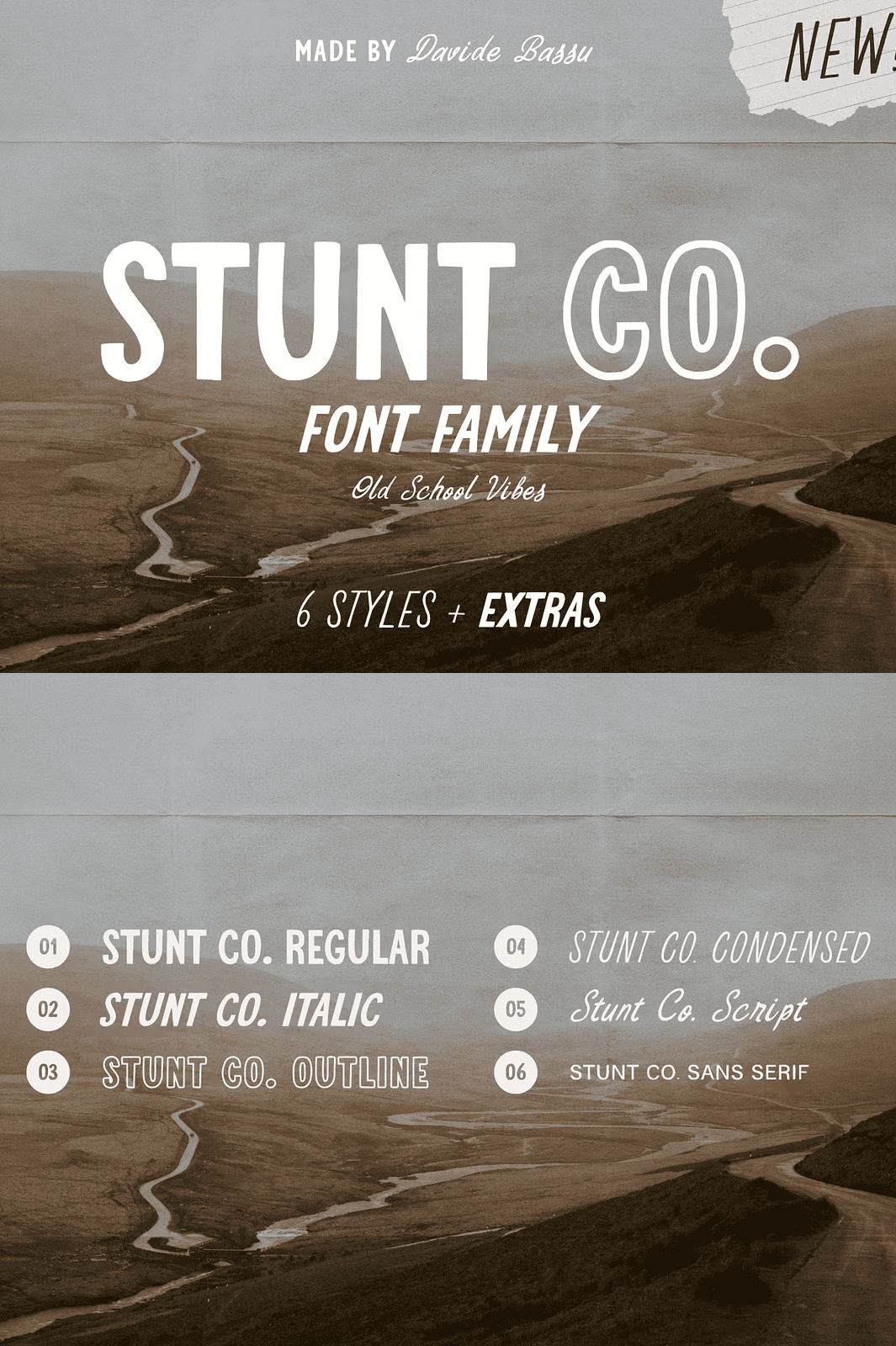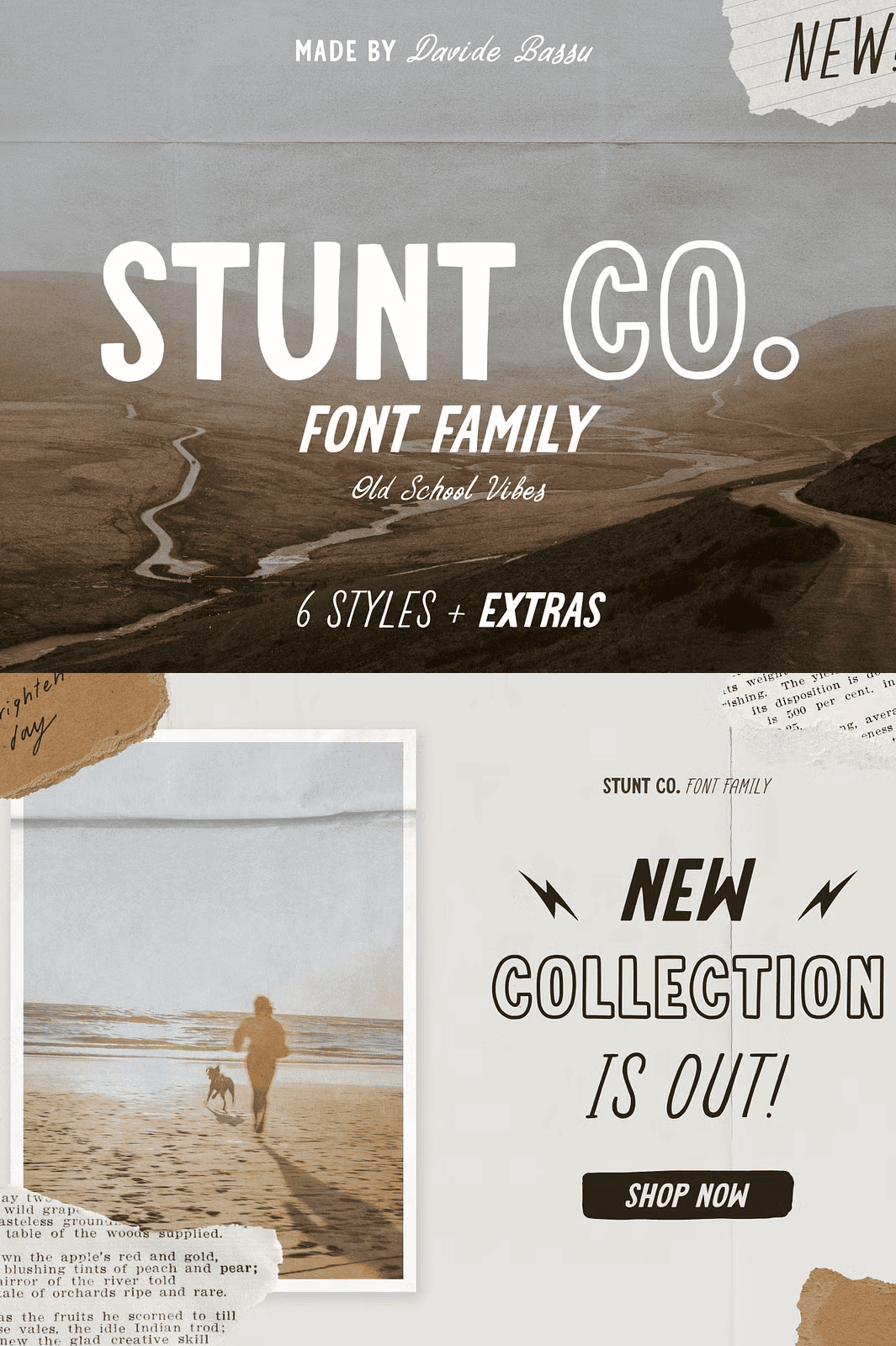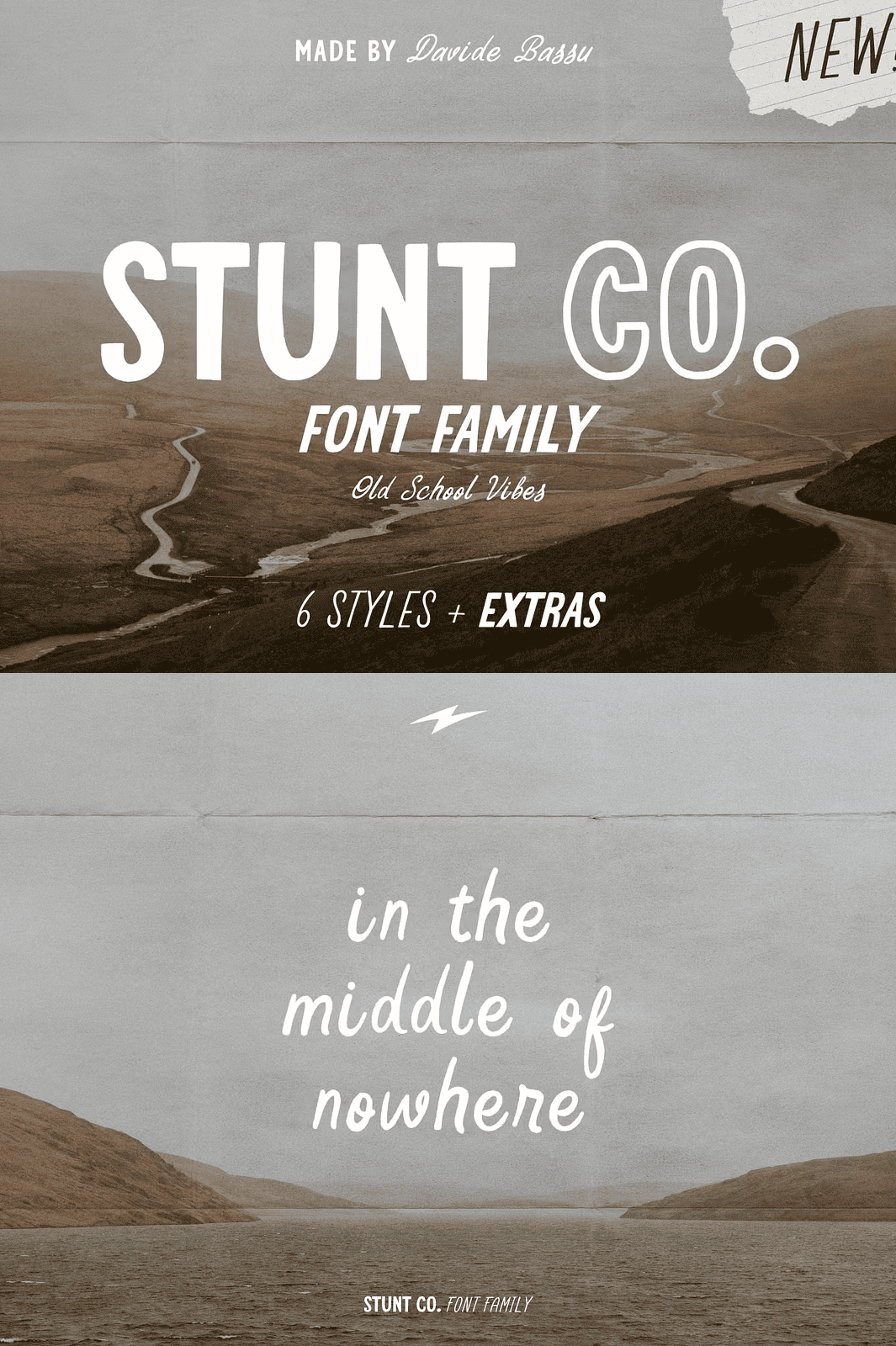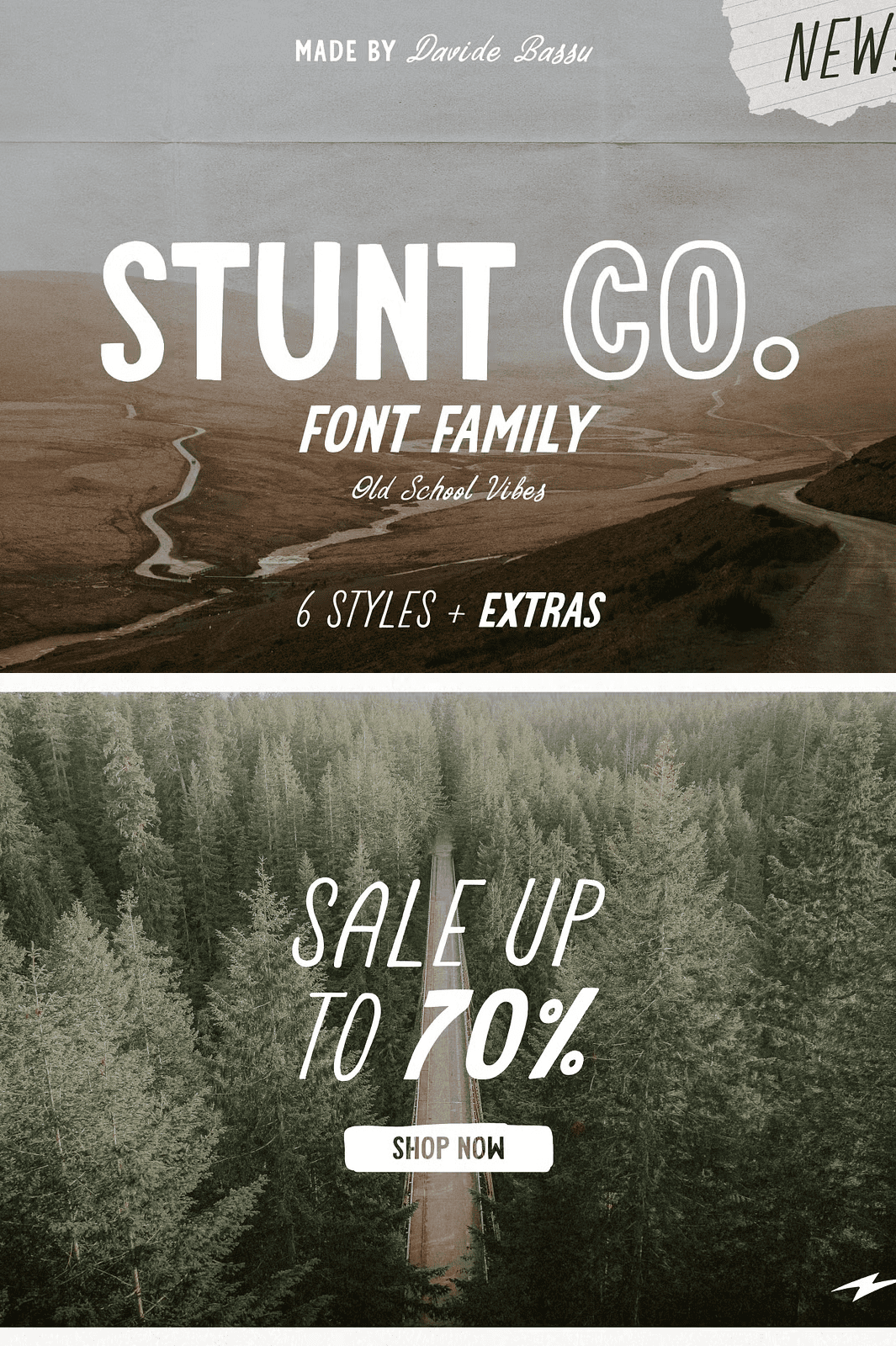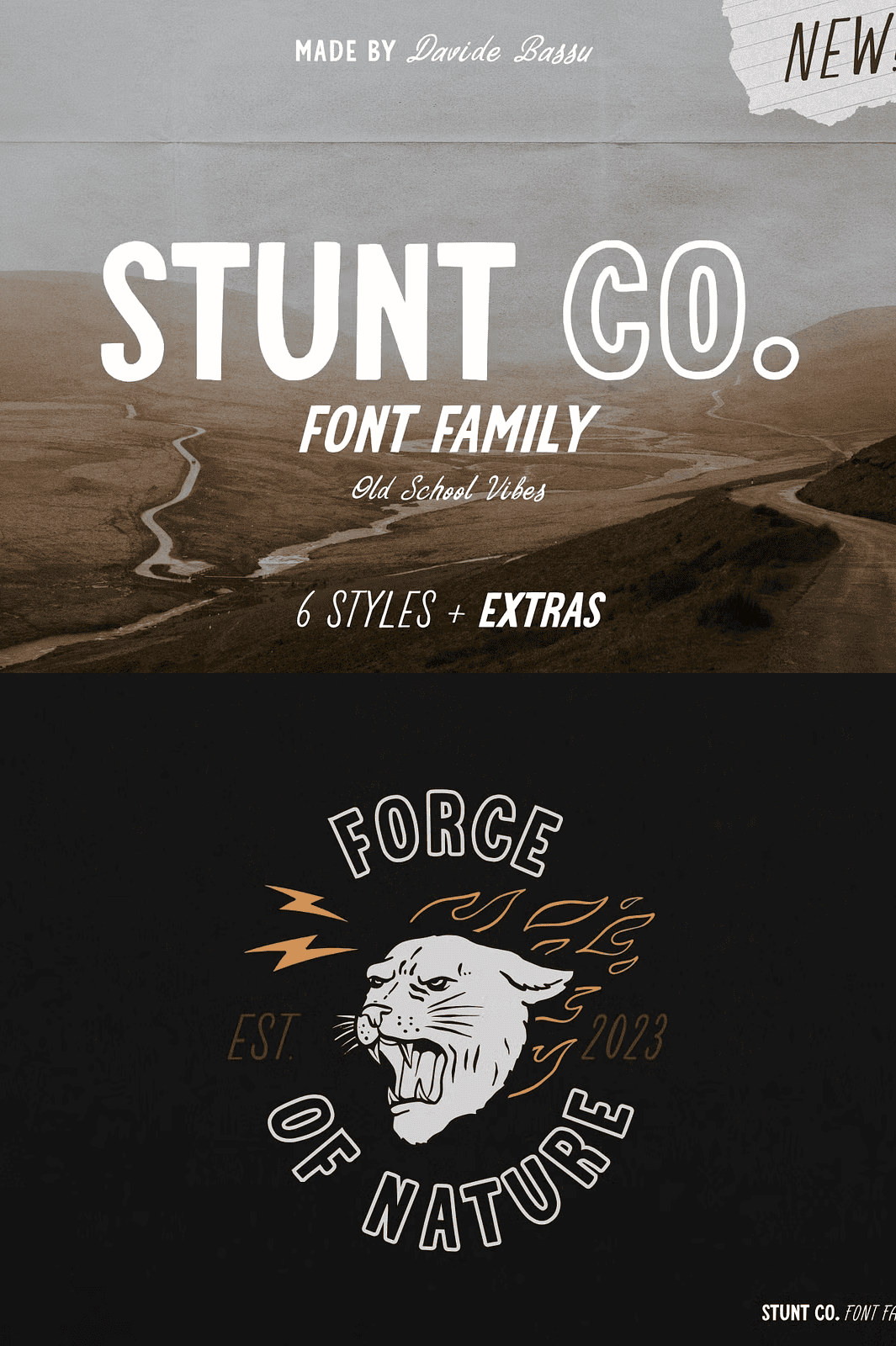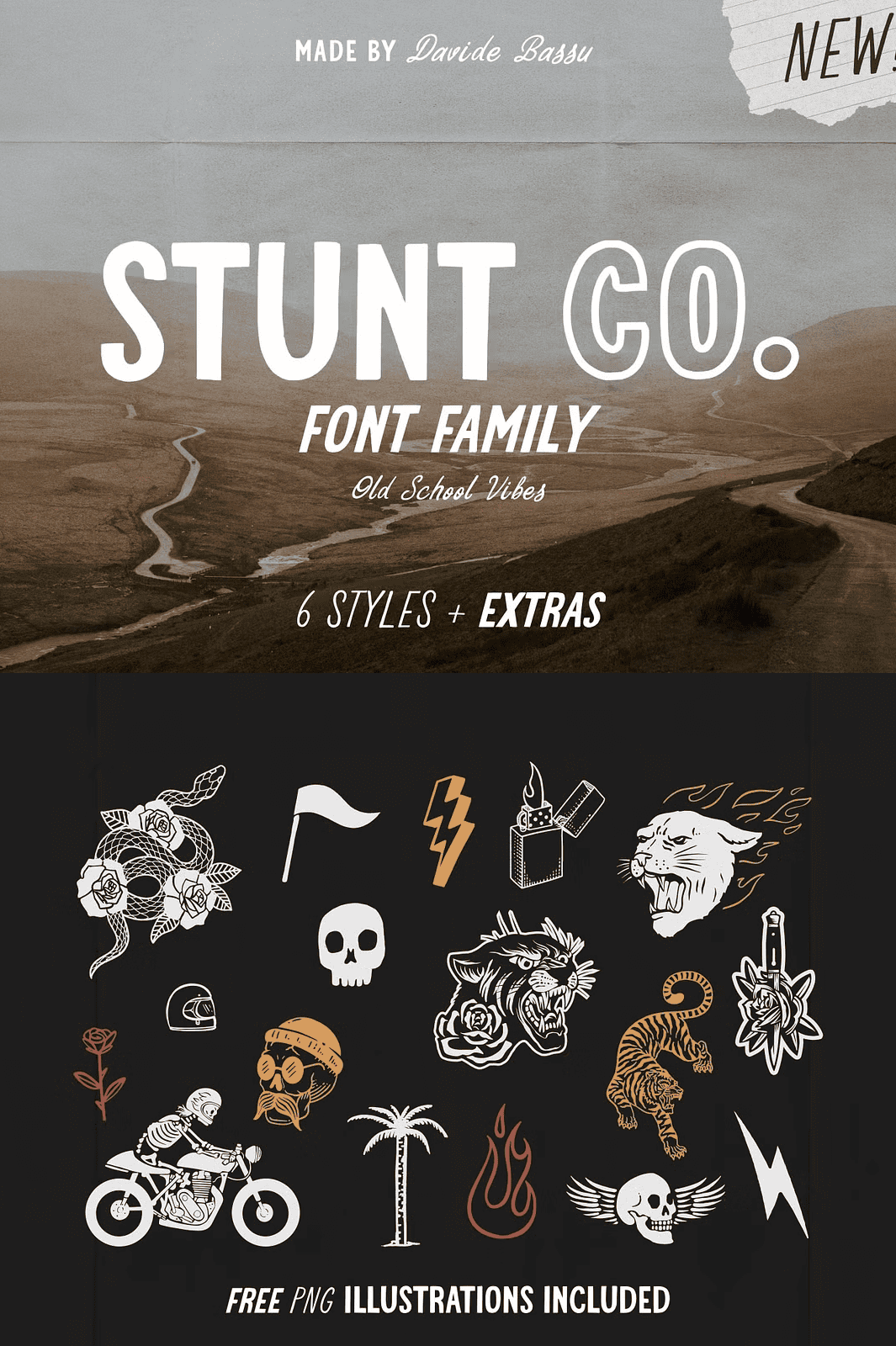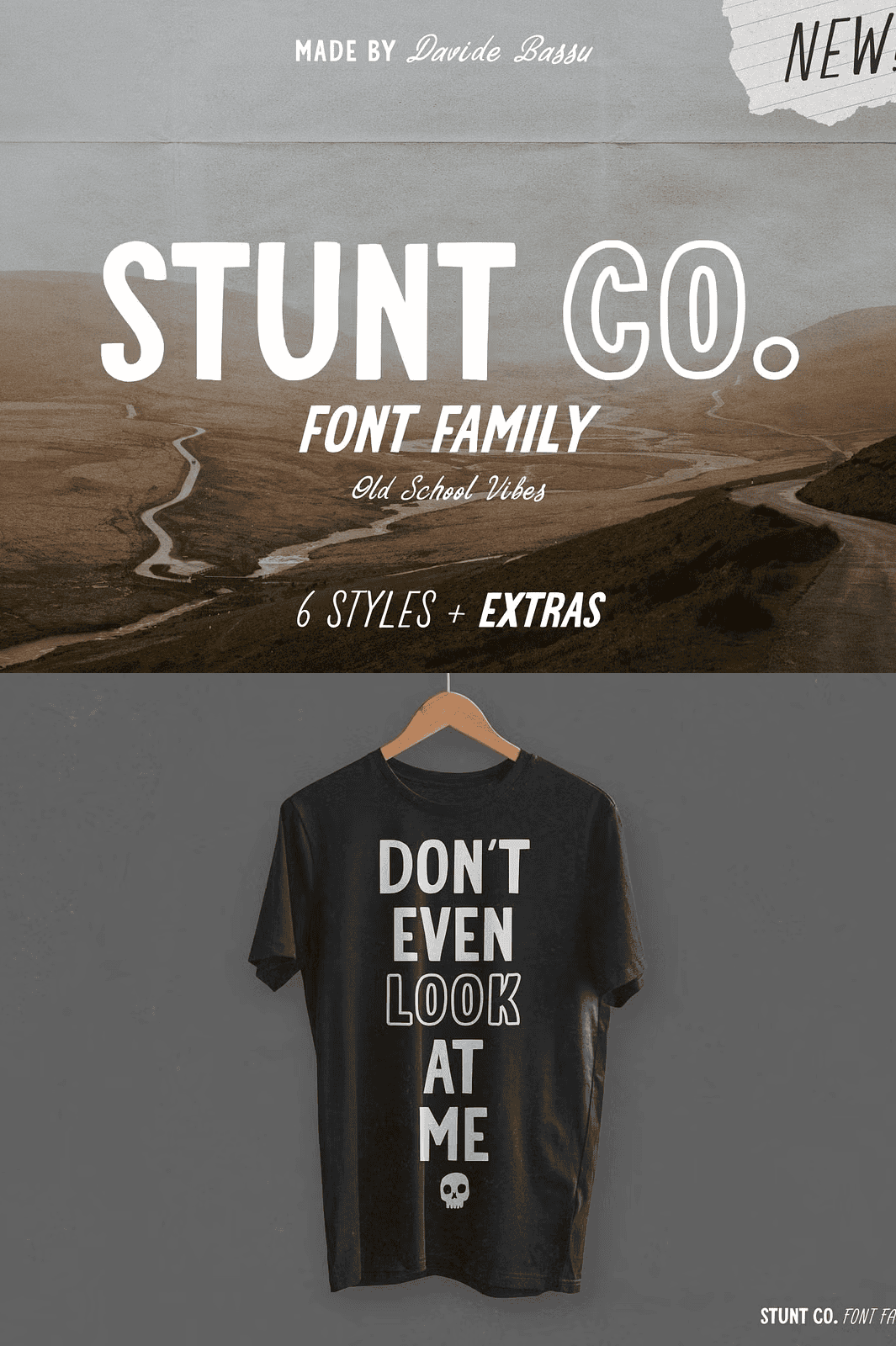
STUNT CO. Font Family + Extra
Unleash Creativity with Six Unique Styles in One Typeface
Stunt Co. is more than just a font it’s a full expression of style and versatility. This hand-drawn typeface family offers six distinct styles, each designed to bring your projects to life with personality and flair. Whether you want to make a bold statement using the regular style, add edgy outlines to your design, or introduce italic elegance, Stunt Co. covers it all seamlessly.
Explore the classic appeal with its sans serif and condensed italic styles, perfect for clean, modern design aesthetics. For a refined touch, the script style adds sophistication and charm that makes any project stand out.
Bonus: Free Isolated PNG Illustrations to Elevate Your Designs
In addition to the fonts, you get 17 free isolated PNG illustrations. These extra graphical assets enhance your projects by giving you ready-made design elements to include in branding, posters, social media posts, and more.
Expand Your Design Possibilities with Stunt Co.
The versatility of Stunt Co. enables designers to experiment with style effortlessly. Create bold headlines, artistic scripts, or sharp sans serif text with ease. The font family caters to various creative needs, making it a practical addition to your typography collection.
Whether you’re developing logos, packaging, editorial content, or digital media, Stunt Co. delivers exceptional style with a hand-crafted soul.